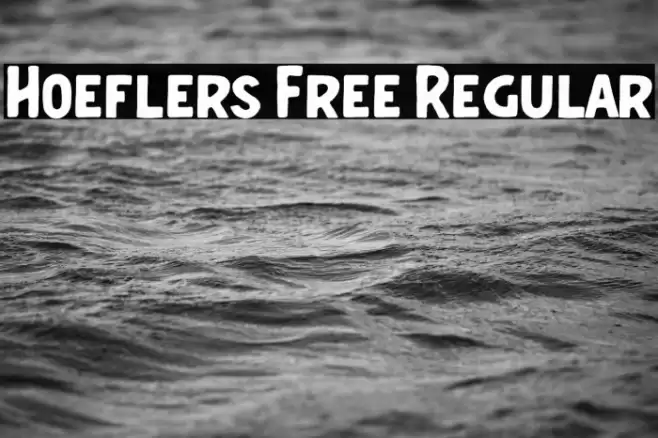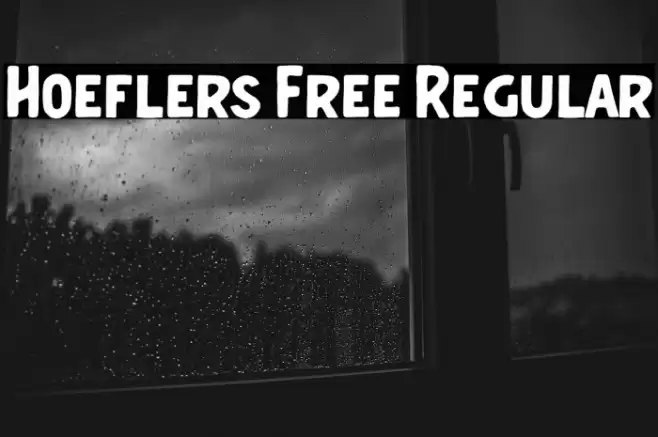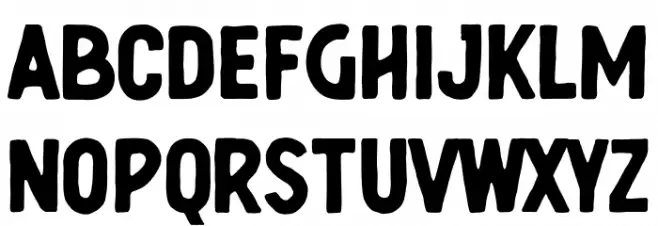
Hoeflers Free Regular Font
Hoeflers Free Regular Description
This font features bold, rounded characters with a playful and friendly appearance. The letters are uniformly thick, giving them a strong presence on the page. The rounded edges and consistent stroke width contribute to a casual and approachable style. The uppercase letters are particularly prominent, with a slight retro feel that adds character. This font is highly legible, making it suitable for various design applications where readability is key. Its boldness ensures it stands out, making it ideal for headlines or titles.
A bold, rounded font with a playful and friendly appearance from Regular fonts.
- Proposed Projects: This font is perfect for children's books, playful branding, posters, and any project that requires a friendly and approachable typeface.
- Overall Style: Playful, Retro